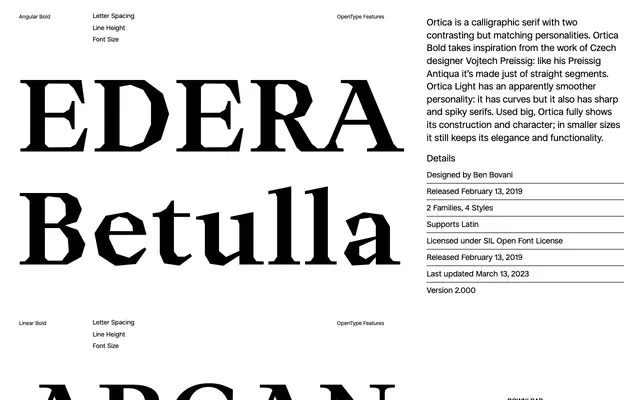
Ortica
Collletttivo · Ben Bovani · 2019
A calligraphic serif in four styles split across two contrasting subfamilies, one built entirely from straight segments after Vojtech Preissig.
Designed by Ben Bovani and released in 2019, Ortica splits into two subfamilies: the Angular cuts, constructed solely from straight segments in the manner of Preissig Antiqua, and the Linear cuts, which use curves but retain sharp, spiky serifs. At large sizes the geometric construction is fully visible; at text sizes the family retains enough refinement for functional use. Available under the SIL Open Font Licence.
Collletttivo describe it as a calligraphic serif; the Bold subfamily is constructed entirely from straight segments inspired by Vojtech Preissig's Preissig Antiqua, while the Light subfamily uses curves with sharp, spiky serifs.